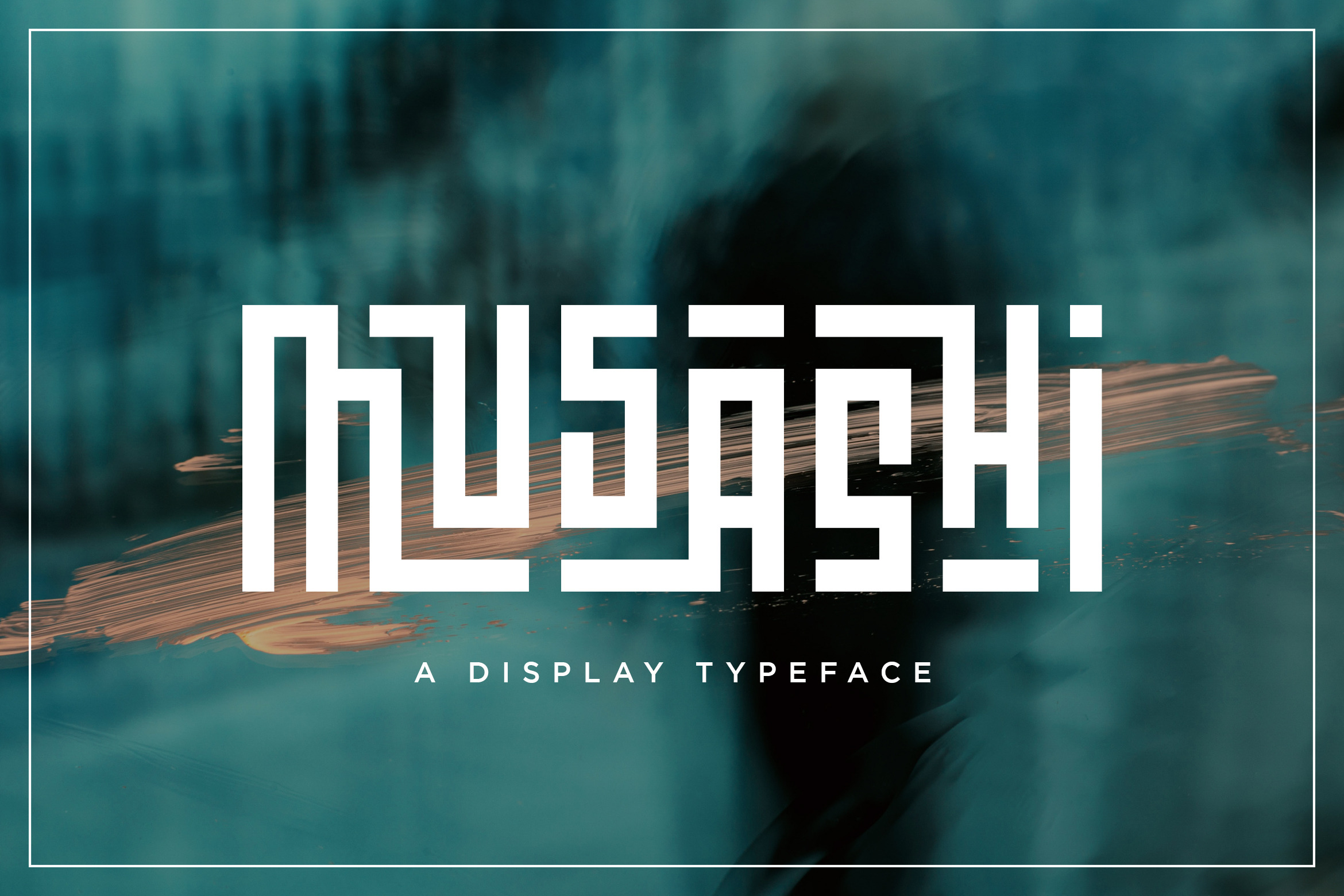
Musashi - 700+ Ligature Font
A display font with 700++ ligature, Musashi packs a full set of capitals, number and punctuation. Be it gigs, sport events, logo design or etc. Musashi was made to bring impact.
Musashi features:
- AA AZ Ligature
- ZA ZZ Ligature
- 3 Character Ligature
- More Feature